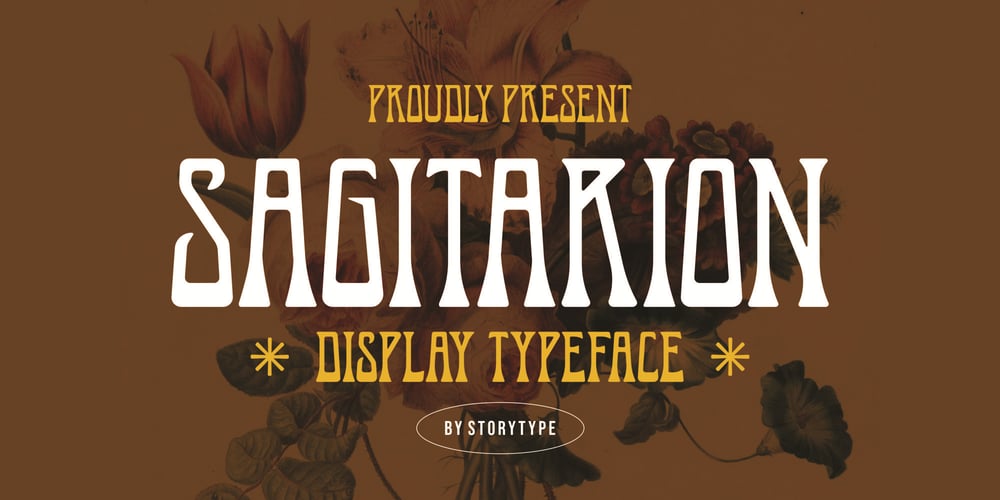
Sagitarion Font Family was designed by Heru Utama Putra and published by Letterena Studios. Sagitarion contains 2 styles and family package options. A serif modern and classic typeface that has its own unique style & modern look.This typeface is perfect for an elegant & luxury logo, book or movie title design, fashion brand, magazine, clothes, lettering, quotes, and so much more.